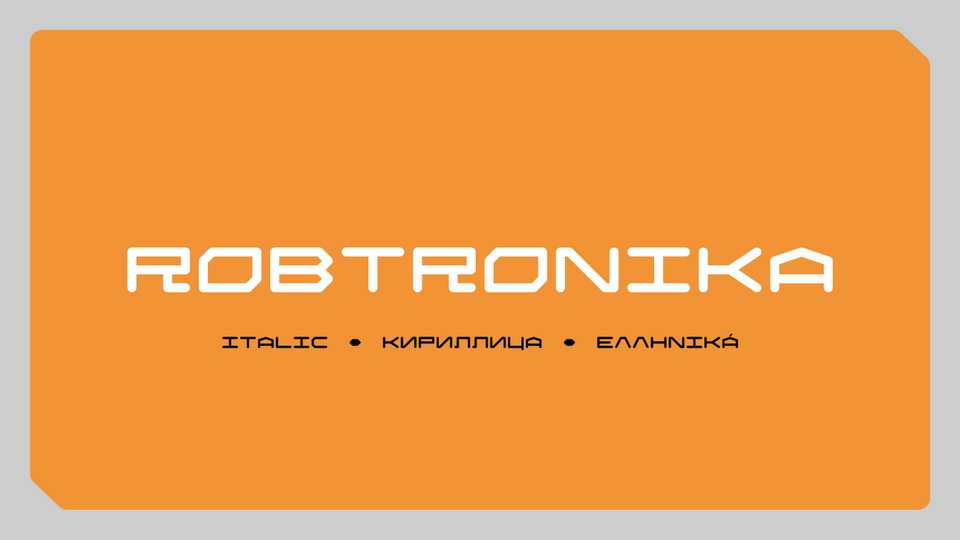
Download Robtronika font, a geometric, gridded and monospaced typeface exhibiting a futuristic simplicity. Robtronika font is perfect for branding projects, headlines, posters and packaging also for technology related logos.